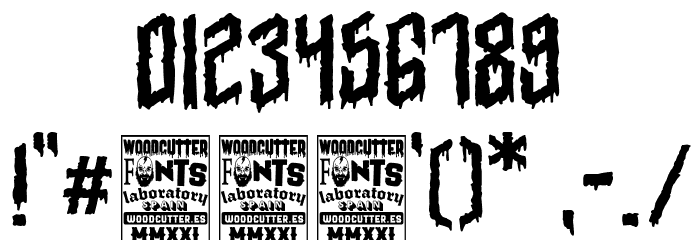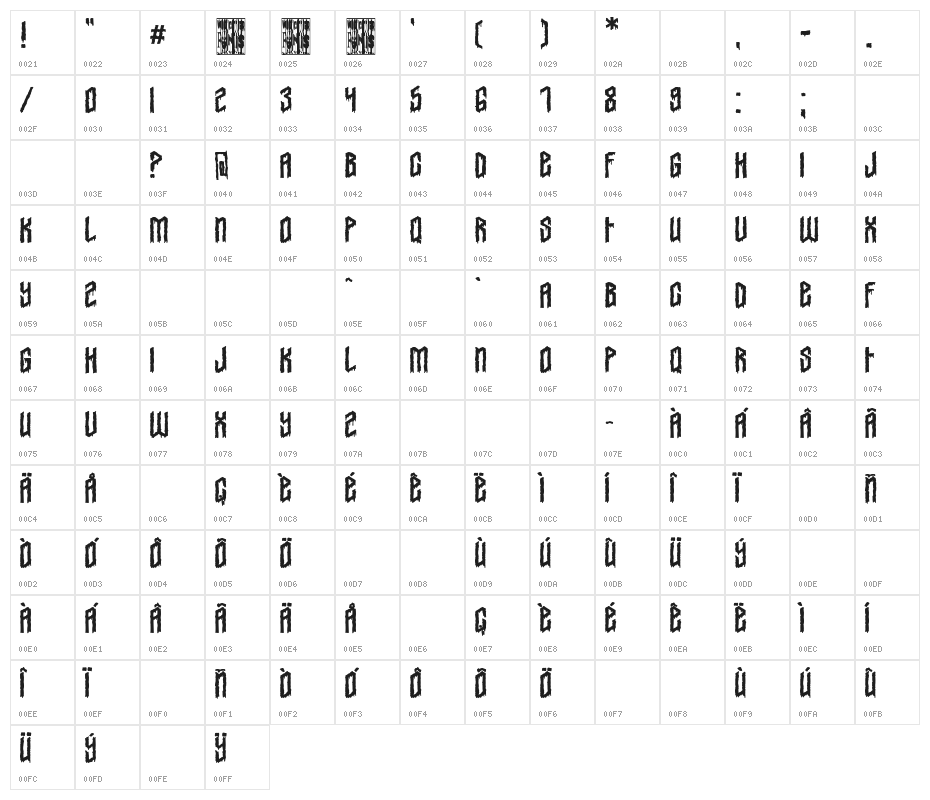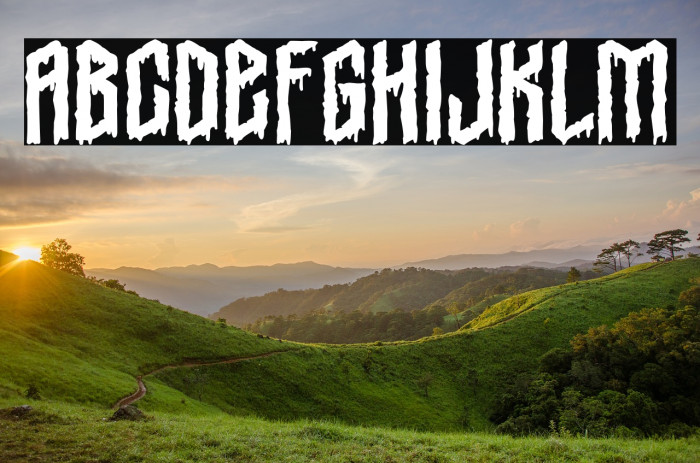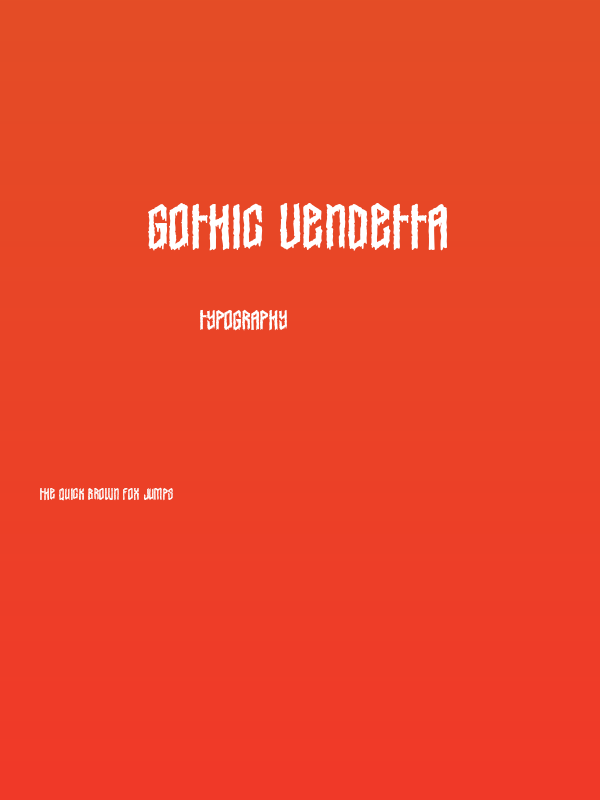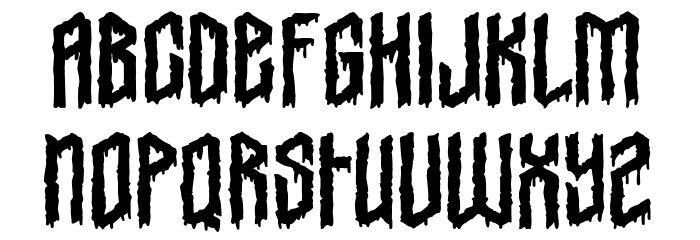
Gothic Vendetta Font
Gothic Vendetta Description
This font features a bold, jagged design that evokes a sense of mystery and intensity. The characters are sharply defined with uneven edges, giving them a rugged, hand-carved appearance. The uppercase and lowercase letters maintain a consistent style, with angular forms and pointed tips. Numbers and special characters follow the same aesthetic, ensuring a cohesive look across all text elements. This font's unique style makes it stand out, perfect for projects that require a dramatic and impactful visual presence.
| Proposed Projects | Ideal for horror-themed designs, movie posters, Halloween invitations, and edgy branding projects. |